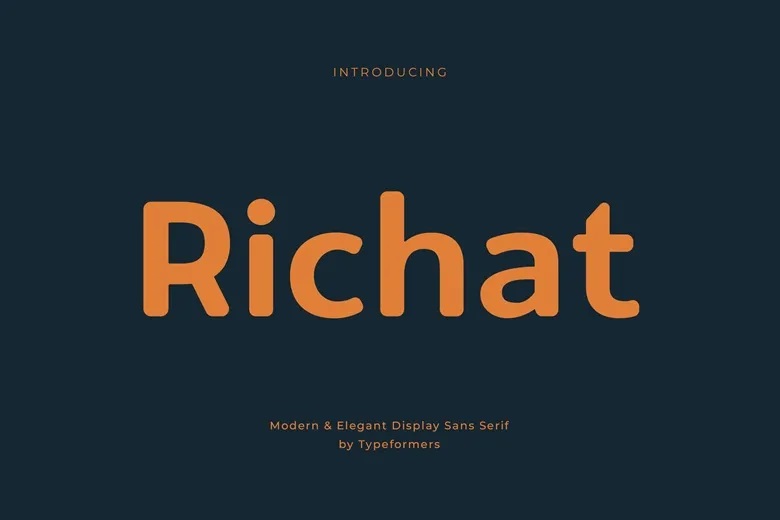
Richat Font
Richat is an elegant and modern display sans serif typeface created by Typeformers with a minimalistic design. It’s clean and simple characters look sophisticated and elegant with balanced and well proportioned layout and are good for any design projects. The font is great for professional and stylish branding, advertising and web design.
Richat Sans Serif Font